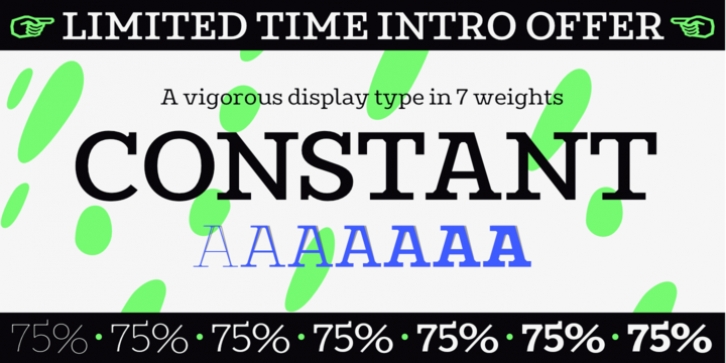
Constant is a meticulously constructed slab serif display typeface of a sturdy lineage. The strong horizontal and vertical rhythm and calculated angles dominate its appearance, yet sweeping broad shapes infuse the design with an overall warm undertone.
Constant is best suited for setting short headlines, word marks, posters and other visual communication ephemera. Particular when set in all uppercase the typeface's squarish and resolute nature commands attention and projects authority. Despite the prominent slab serifs and their angular corner details, these fonts work well also for shorter text passages, especially in the lighter to medium weights. When typesetting Constant in paragraphs spanning several lines the face requires a fair amount of leading to not appear vertically compressed.
As customary for Underscore's catalog the fonts have very extensive support for languages in the Latin script, reaching from Afrikaans to Vietnamese and Zulu. The fonts are carefully spaced, kerned and hinted, and include a variety of typographic glyphs and OpenType features like various ligatures, number features and case alternatives.
Constant has been developed and released in 2018 as the proud forth release from the Underscore label. This design by Johannes Neumeier is available from the Underscore webshop as well as selected retailers.